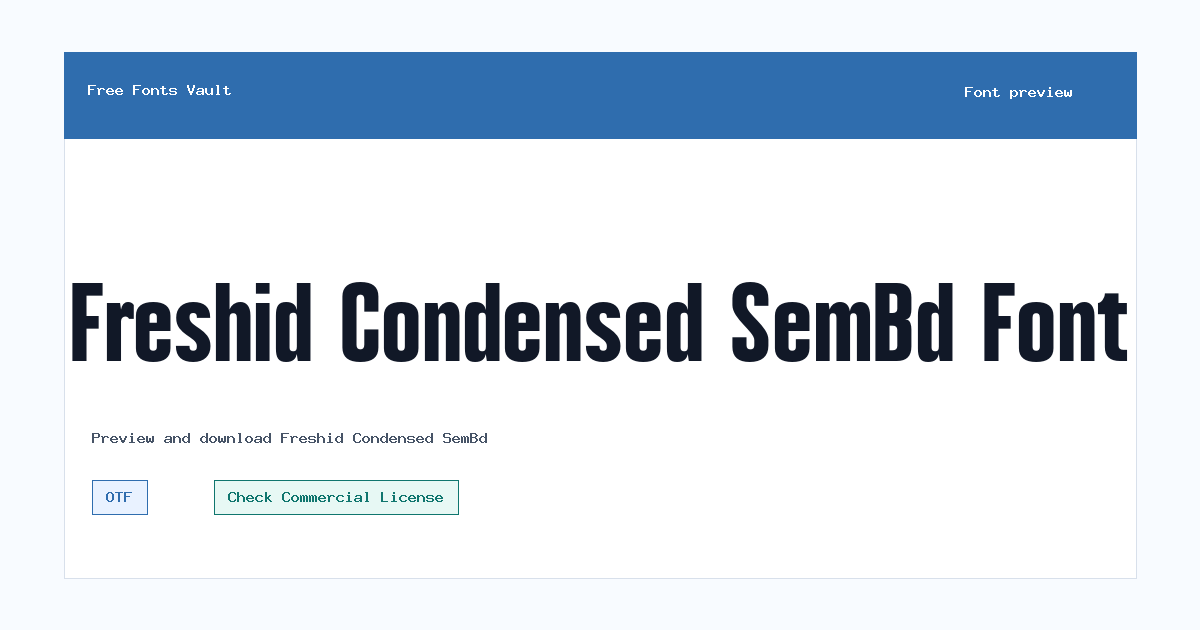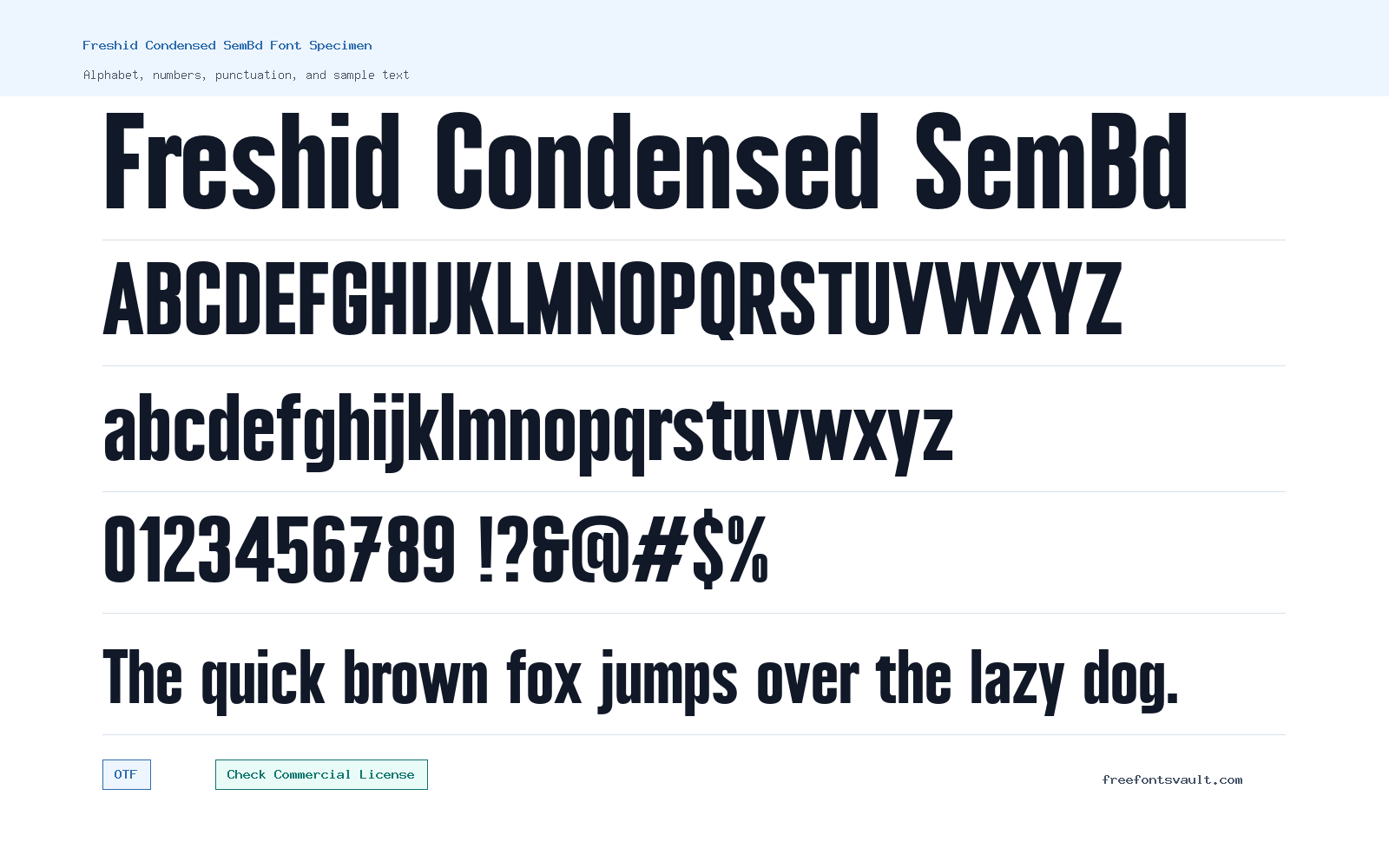
Freshid Condensed SemBd
- Designer Wafi ZImamul
- Foundry Wappitype
Freshid Condensed SemBd is a condensed semi-bold OTF font with a narrow footprint and stronger weight, making it useful when you need display text that feels firm without taking up much horizontal space.
About Freshid Condensed SemBd
Freshid Condensed SemBd uses a condensed style, so it can fit longer words into tighter layouts than a wider display face. The semi-bold weight gives text more presence than a regular style, which makes it better suited to short headlines, nameplates, packaging-style labels, banners, and other places where the words need to stand out quickly.
Use the preview box to test your own words before downloading, especially if your project includes long titles, mixed case text, or small sizes. Condensed fonts can look sharp in large display settings, but they may become harder to read in dense paragraphs. For body copy, pair it with a simpler, more open text font and keep Freshid Condensed SemBd for emphasis.
- Condensed proportions for compact display layouts
- Semi-bold OTF style with font weight listed as 700
- Headlines, posters, banners, and short promotional text
- Labels, covers, thumbnails, and designs where space is limited
Freshid Condensed SemBd is credited to designer Wafi ZImamul and foundry Wappitype.
For the best result, use this font at medium to large sizes and test spacing carefully. Condensed semi-bold letters can feel tight if tracking is too low, so add a little letter spacing for all-caps words or narrow layouts. Semibold is a practical middle weight for condensed typography. It gives more presence than light styles but stays easier to read than extra-bold cuts in smaller spaces. Use it for headings, navigation-style labels, or short product names, then move to a lighter or heavier variant only when the hierarchy needs it. It is also a good choice for repeated headings across a set of graphics because the semibold weight stays clear without feeling oversized. If a title still feels narrow, add slight tracking before moving to a wider companion face. This makes the semibold cut reliable for repeat use across a font page, campaign set, or simple brand-style layout.
What kind of font is Freshid Condensed SemBd?
It is a condensed semi-bold display-style font supplied as an OTF file.
Is Freshid Condensed SemBd good for body text?
It is better for short display text than long reading sections. For paragraphs, pair it with a clean text font.